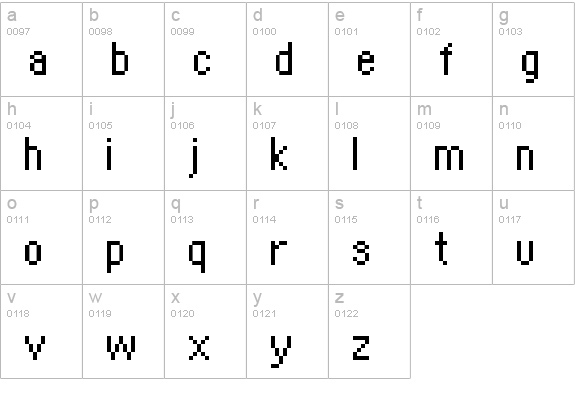
Introducing the stunning supertext high font, a visually captivating typeface that exudes modern elegance and sophistication. This unique font features sleek lines and sharp angles that make it stand out from the crowd. Perfect for adding a touch of luxury and style to your design projects, whether it be for branding, advertising, or any other creative endeavor. The best part? This amazing supertext high font is available for free download at FontsMarket.com. Embrace the power of this exceptional font to elevate your designs to new heights. Don't miss out on the opportunity to enhance your work with this premium font at no cost. Download now and unleash your creativity with the supertext high font today!